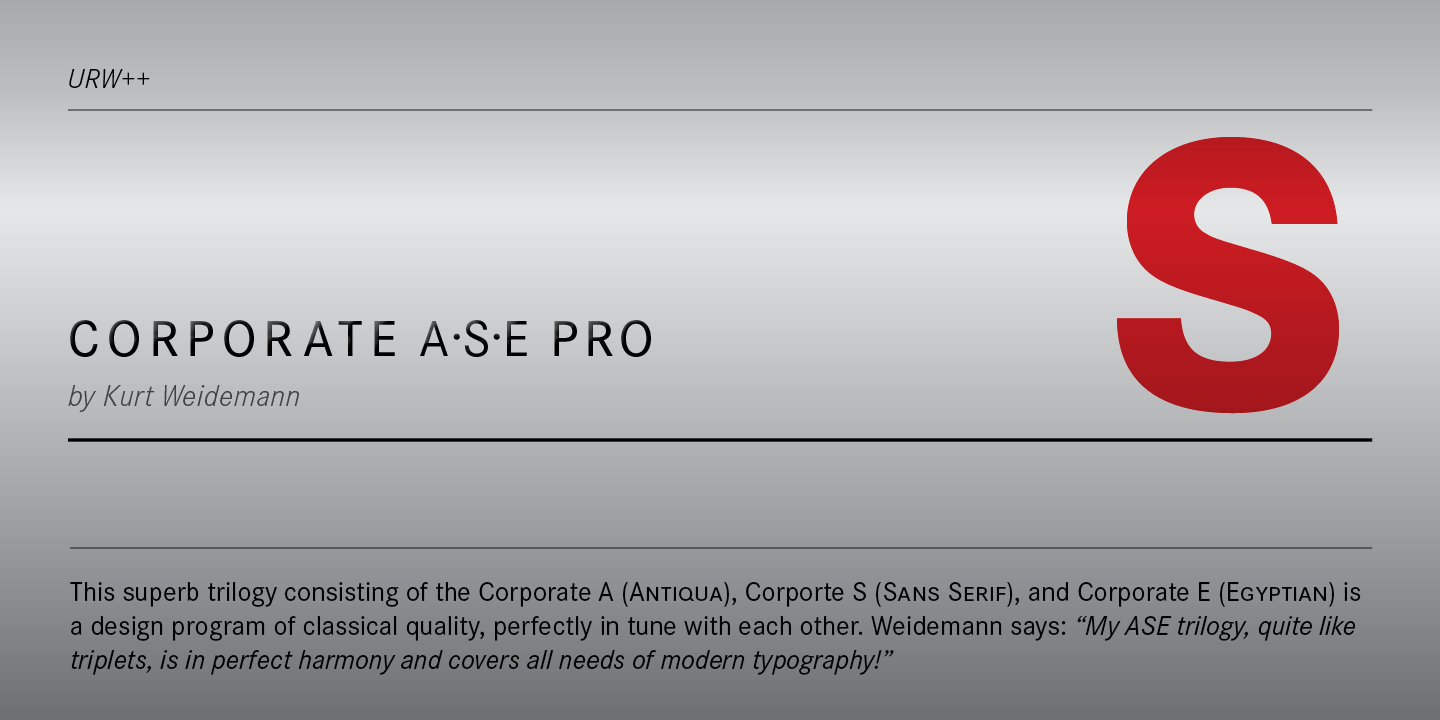
Corporate S WGL Font excels in various design applications including professional business branding, corporate identity systems, multilingual documentation, international company materials, global business presentations, executive communications, worldwide corporate signage, and comprehensive brand guidelines. This corporate typeface adapts seamlessly to both professional digital platforms and authoritative print materials, making it perfect for designers seeking business excellence and worldwide linguistic support in their visual communications.
Corporate S WGL Font generates excitement among design professionals due to its corporate character and comprehensive styling that instantly conveys business professionalism and global reach. The font's professional letterforms and worldwide proportions create an immediate sense of corporate authority and international capability. Its business personality makes it particularly appealing for organizations wanting to communicate corporate excellence, global presence, and professional reliability in their visual identity.
The Corporate S WGL Font family encompasses multiple weights and styles including Regular, Bold, Light, Medium, and Condensed variations. Each family member maintains corporate design principles while offering extensive multilingual support. The Light weight provides subtle corporate elegance for professional applications, while the Bold version delivers authoritative impact for executive headlines and corporate brand statements.
Business designers frequently choose Corporate S WGL Font Free Download for projects requiring both corporate authenticity and global distinction. This typeface demonstrates exceptional effectiveness across international industries including multinational corporations, global consulting firms, worldwide organizations, and international businesses. Its corporate character allows companies to communicate professional excellence while maintaining excellent readability and worldwide visual appeal that supports comprehensive global communication needs.